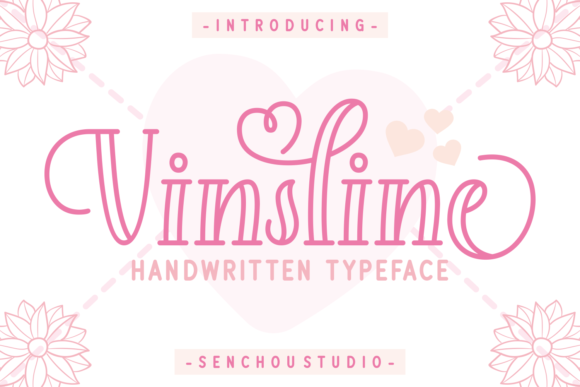
**Ignite Your Visual Identity with Vinsline: The Alluring Display Font**
Prepare to be captivated by Vinsline, the display font that radiates joy and charm. Its playful curves and expressive strokes will transform your digital creations into vibrant masterpieces.
Immerse yourself in the world of Vinsline, where every letter dances with personality. Its PUA encoding grants you effortless access to an array of glyphs and swashes, empowering you to unleash your creativity without bounds.
Whether you're crafting eye-catching website titles, captivating social media posts, or alluring marketing materials, Vinsline is your go-to choice. Its versatility knows no limits, allowing you to convey your message with style and substance.
Indulge in the beauty of Vinsline and witness your digital creations soar to new heights. Let its cheerful spirit infuse your projects with an irresistible charm that will leave a lasting impression on your audience.